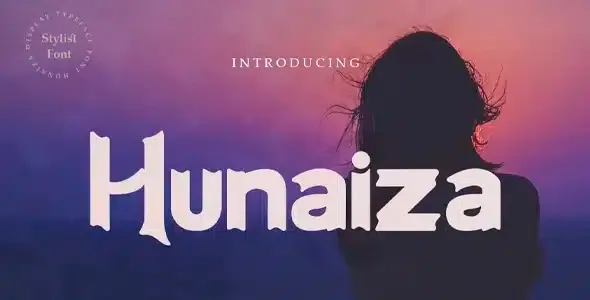
Hunaiza Premium Font
Introducing Hunaiza Premium Font. A modern and elegant handwritten font. Create standard uppercase, lowercase, numbers, and punctuation. Lowercase alternate characters, standard ligatures, and flourishes are also included.
Perfect for handwritten quotes, signature style logos, invitations, stylish branding projects, and stationery and handmade product designs.